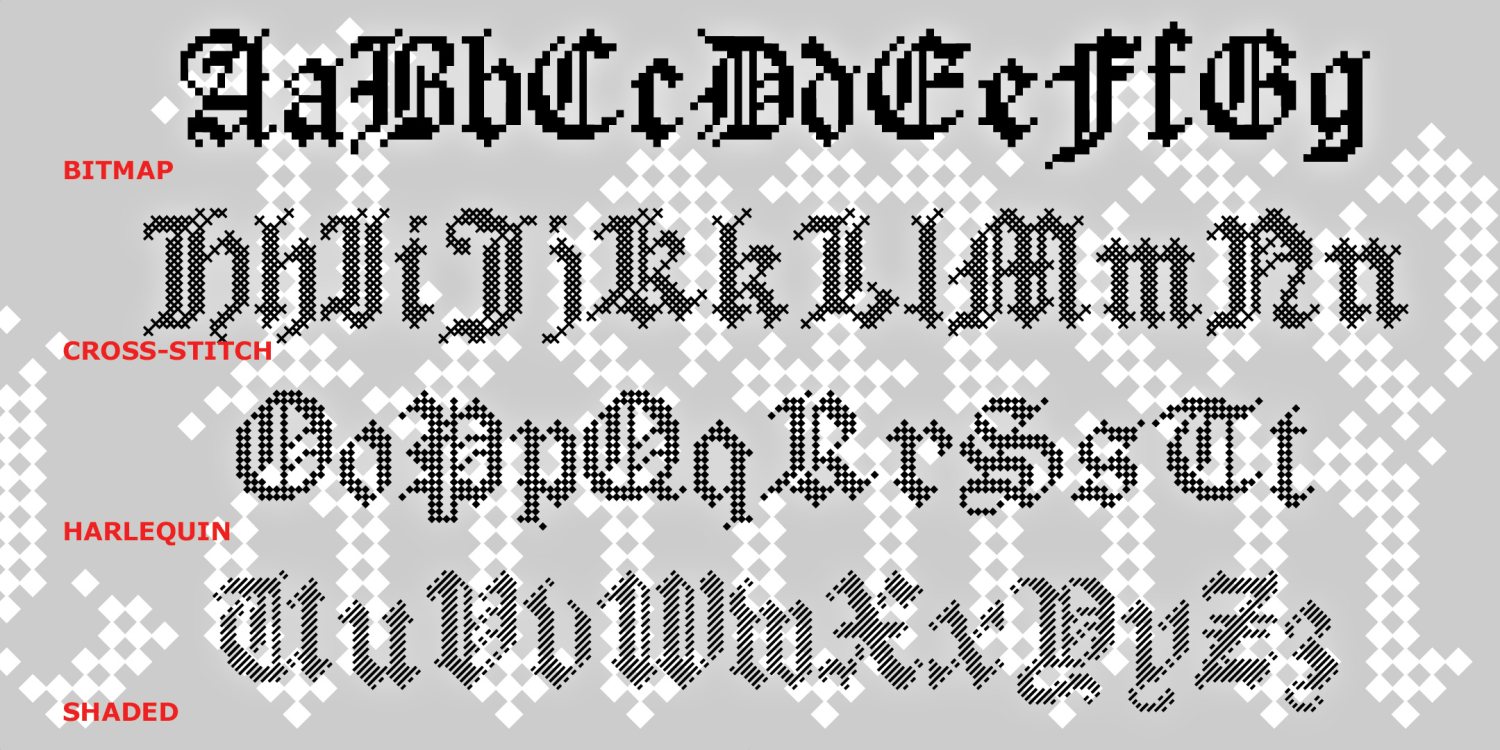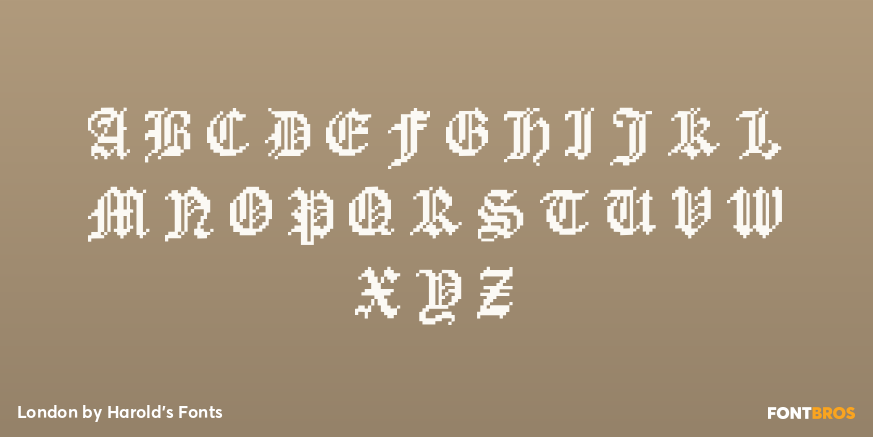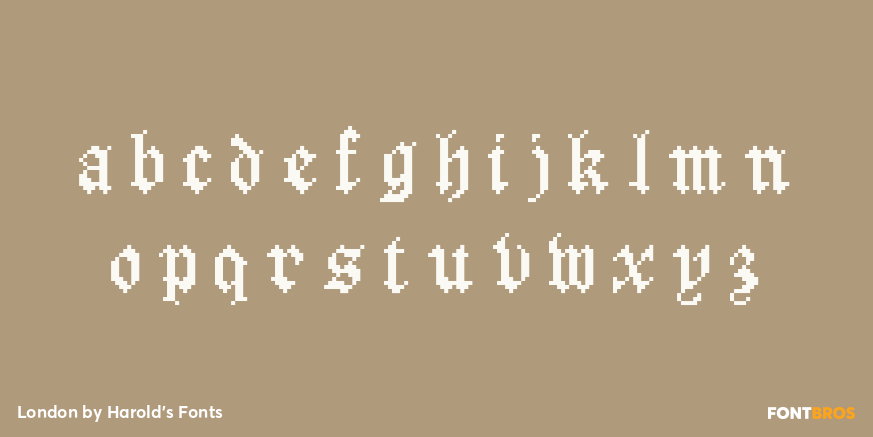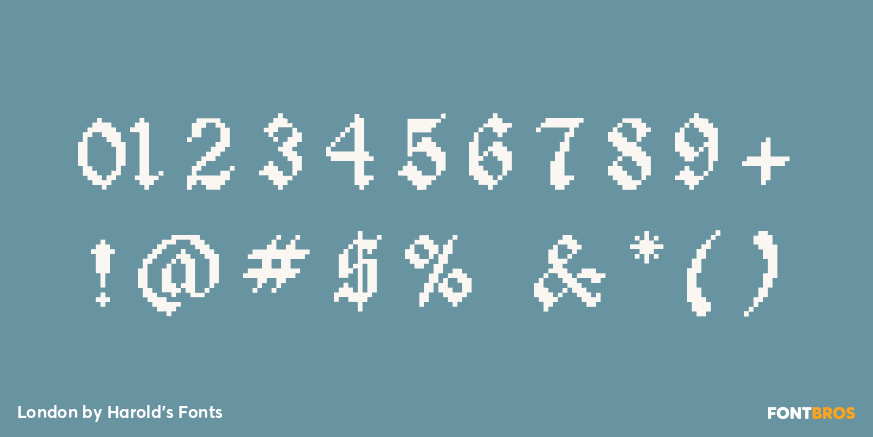
London
Buy NowThe London family was inspired by the Apple classic font, London, a bitmap-style "Olde English" designed by Susan Kare in the early 1980s. London is now all but forgotten, one of the last of the beloved city-named bitmap fonts to be remade as an OpenType font, following my L.A. fonts of 2010. For fun, I've also created decorative variations: Cross-stitch, Harlequin (black and white diamonds), and Shaded (diagonal lines).
London Bitmap
London Shaded
London Harlequin
London CrossStitch